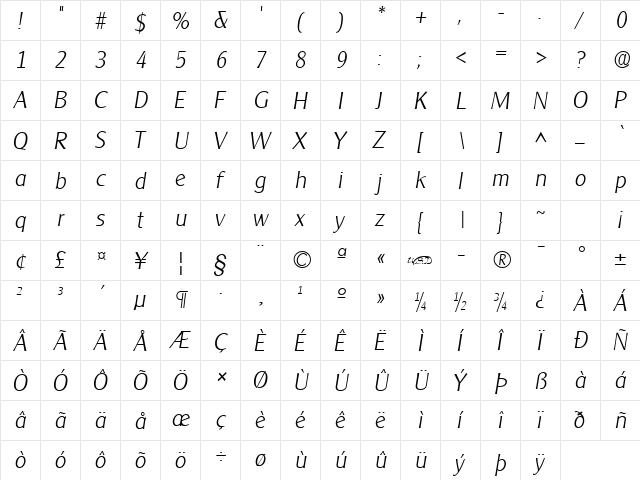
Clearly Gothic Light Italic Font Preview
Design Context for Clearly Gothic Light Typeface
Clearly Gothic Light takes a clean, functional approach — its unadorned letterforms prioritise legibility and work reliably across screen and print environments. The slanted form adds forward momentum and visual energy. The delicate stroke weight brings airiness and refinement to layouts.
Ideal for fashion and beauty branding, minimal editorial layouts, and premium digital experiences.
Font Pairing: Pair Clearly Gothic Light with a medium or bold serif for headlines — the weight contrast creates an elegant, high-end feel.
Pro Tip: Avoid using Clearly Gothic Light at very small sizes where its slender strokes can disappear. It performs best at medium to large sizes.